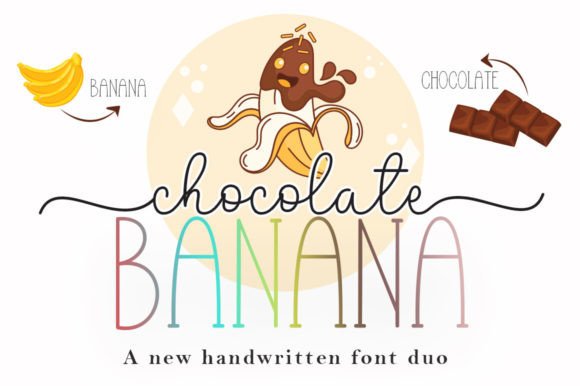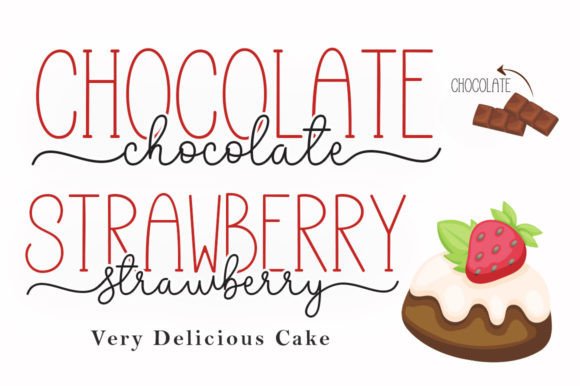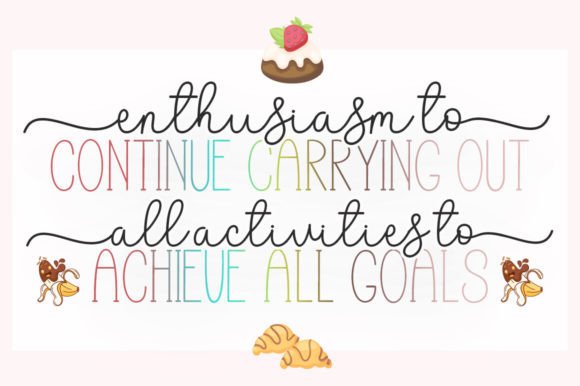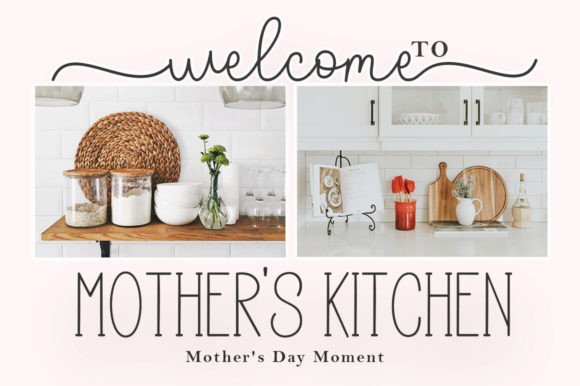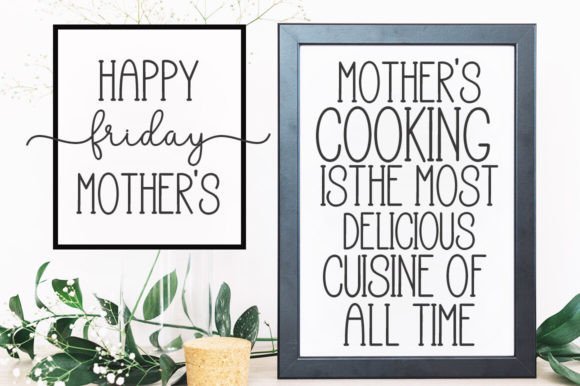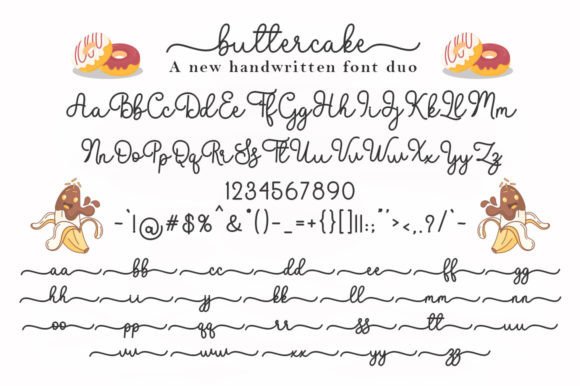
Introduction to Butter Cake Duo Font
Experience the versatility of the Butter Cake Duo, an elegantly smooth duo font blending the best aspects of sans serif and script.
Its unique character adds a touch of romance to any creation, be it a heartfelt greeting card or an eye-catching headline Imbued with PUA encoding, this typeface offers easy access to a cornucopia of glyphs and ligatures, guaranteeing a flawless integration into any design backdrop.
Key Features of Butter Cake Duo Font